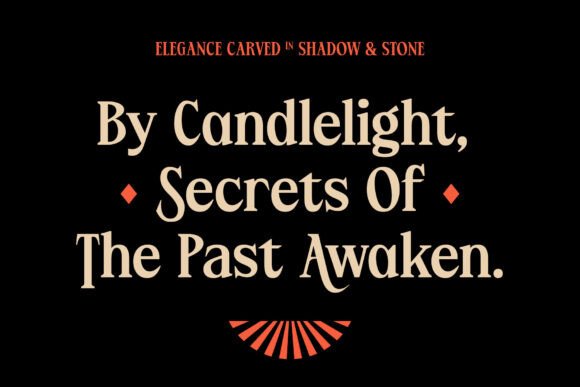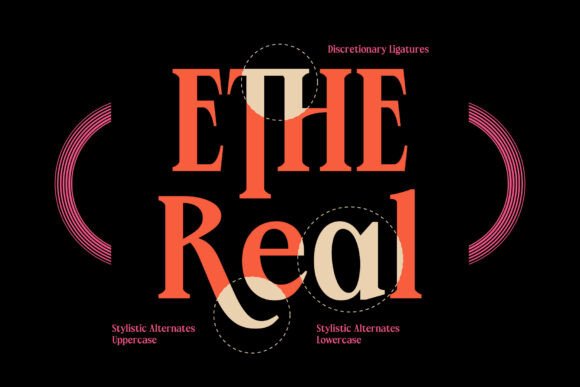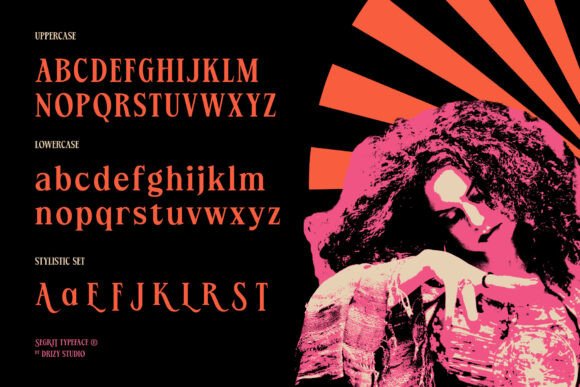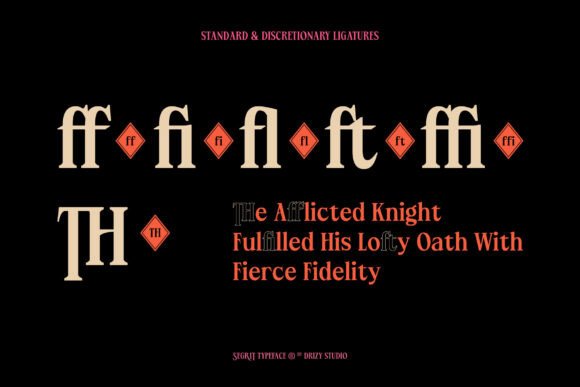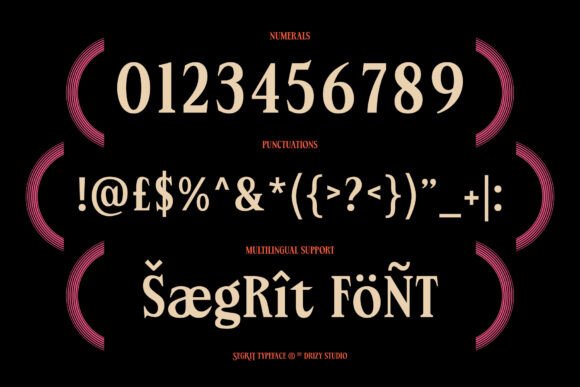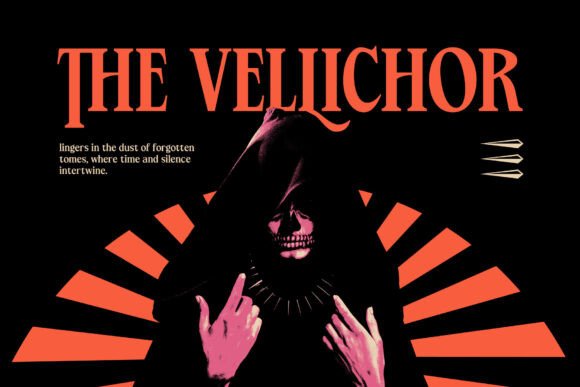
Introduction to Segrit Font
Segrit – Classic Vintage Font Step into the eerie elegance of the past with Segrit, a spine-chilling vintage typeface that channels the macabre beauty of Classic Horror.
With its sharp serifs, haunting curves, and timeworn texture, Segrit evokes the chilling charm of Victorian-era posters, Gothic book covers, and early 20th-century horror cinema Perfect for Halloween branding, ghost stories, occult merchandise, or anything that needs a touch of antique dread, this font breathes dark sophistication into every letter.